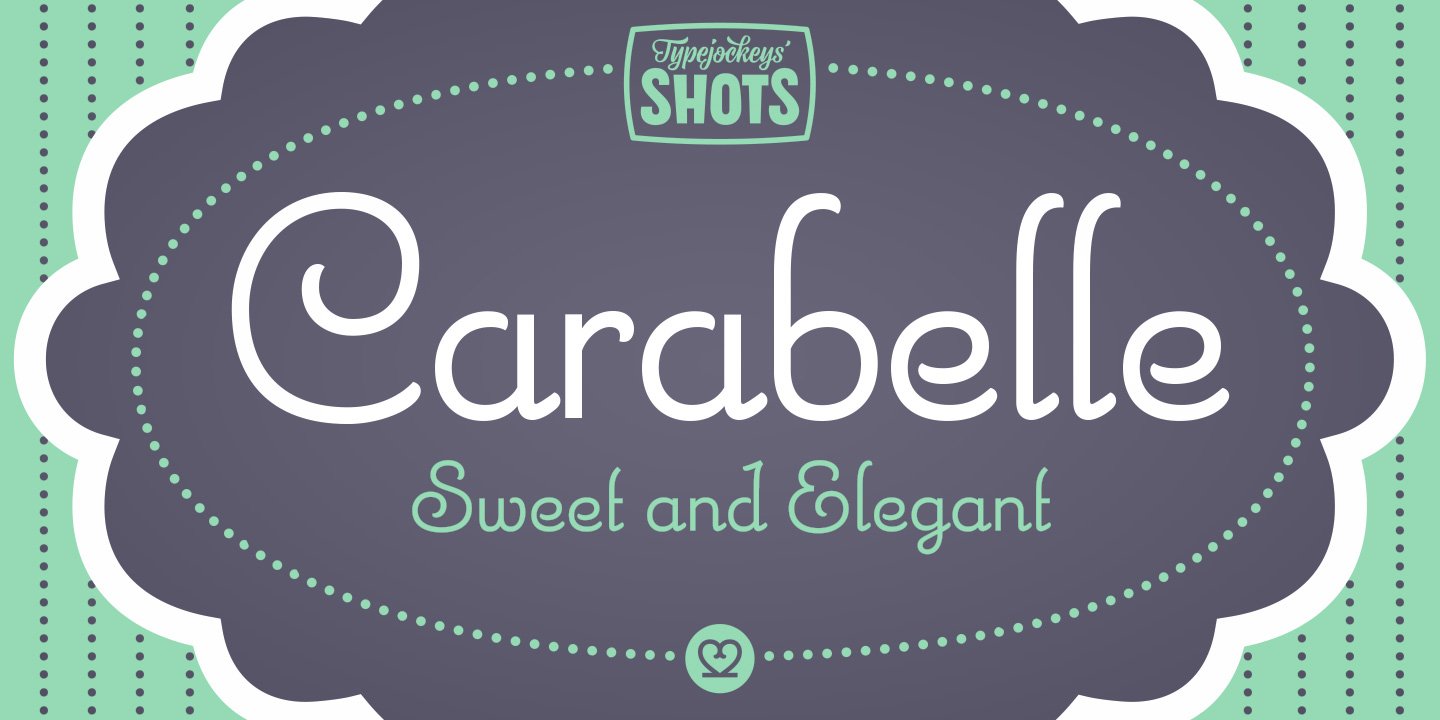
This enchanting font is perfect for fairy tale publications, whimsical children's books, magical event planning, fantasy brand identities, storybook wedding invitations, enchanted forest themes, mystical product packaging, and imaginative storytelling projects. Its charming character makes it ideal for projects requiring magical wonder and storybook elegance.
Carabelle Font is exciting because it captures the essence of enchanted storytelling with letterforms that appear blessed by fairy magic and crafted in mystical workshops. The font features graceful curves, whimsical proportions, and enchanting details that mirror the captivating beauty and innocent wonder found in beloved fairy tales and magical adventures. Its spellbinding personality instantly communicates imagination, hope, and the timeless appeal of believing in magic.
The Carabelle Font family typically includes multiple magical weights and fantastical variations, along with fairy tale symbols, enchanted ornaments, and mystical decorative elements. Many versions feature alternate characters with different magical qualities and special glyphs that enhance the storybook atmosphere and fantastical authenticity.
Whether you're creating children's entertainment brands, fantasy-themed campaigns, or magical event experiences, Carabelle Font Free Download provides authentic fairy tale charm with professional craftsmanship. This typeface transforms ordinary communications into magical invitations that resonate with dreamers, storytellers, and anyone who believes in the power of imagination. Its distinctive character adds immediate enchantment while celebrating the enduring magic of Carabelle Font Free Download and the precious gift of wonder that reminds us that extraordinary possibilities exist for those who dare to believe in fairy tale dreams.